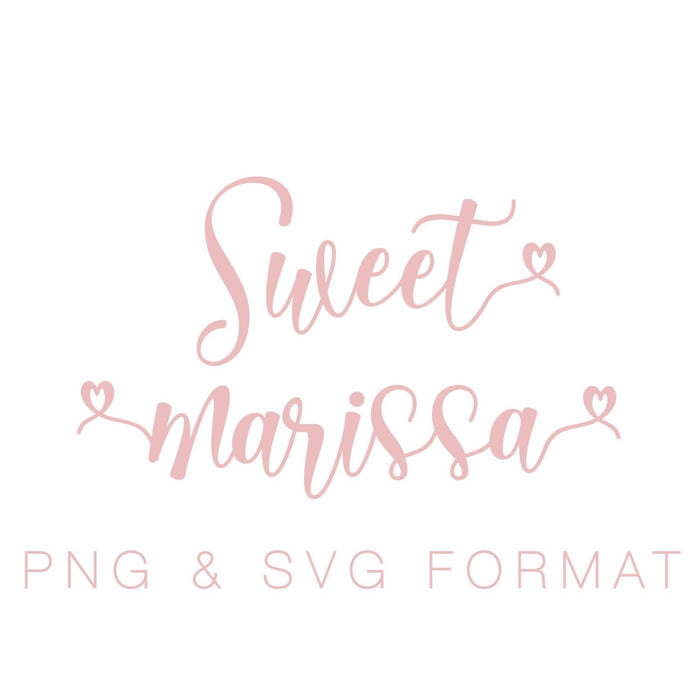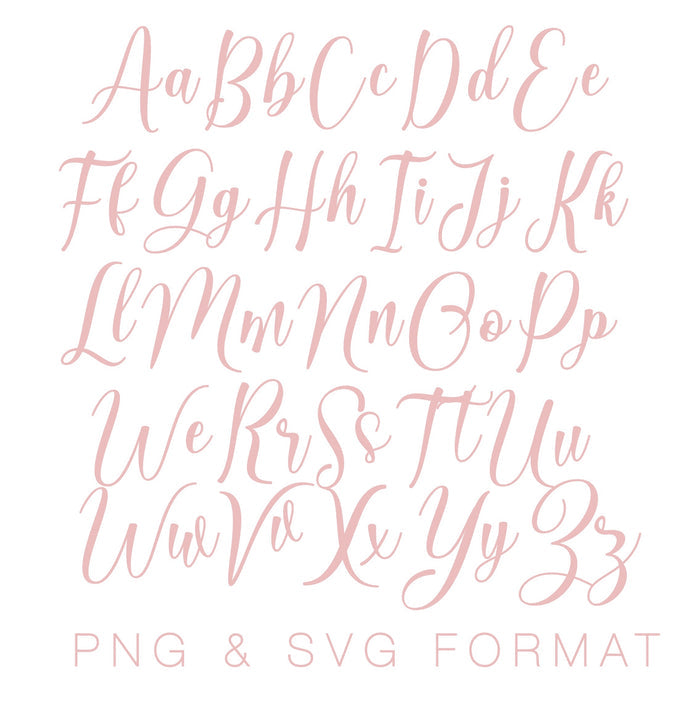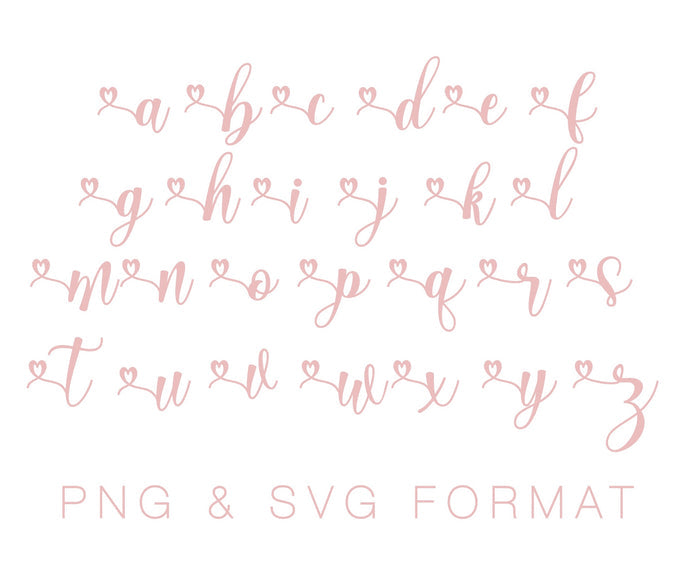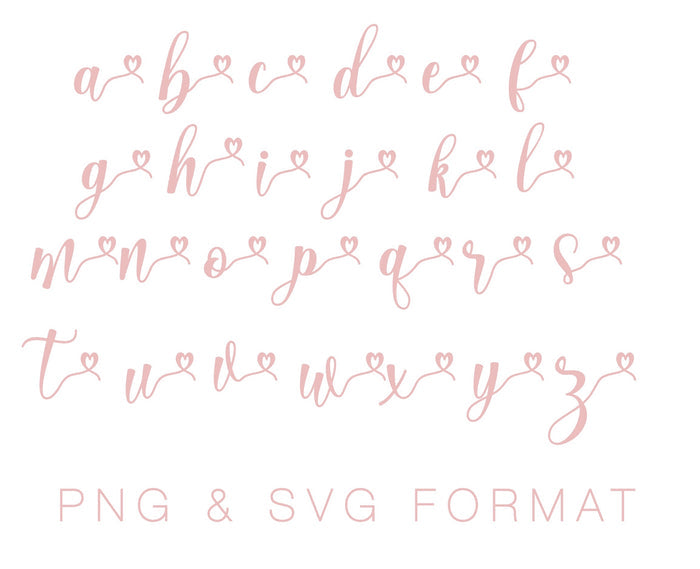
Sweet Marissa Heart Monogram PNG SVG Monogram Font
The Sweet Marissa PNG SVG Font includes 52 letters A-Z Uppercae and lowercase letters 26 left curl letters and 26 right curl letters to create a monogram as shown in the first image. There are 104 letters total in both PNG and SVG format.